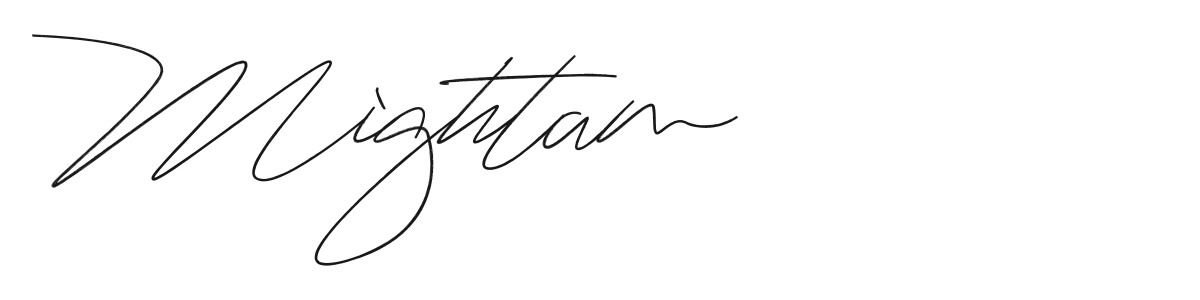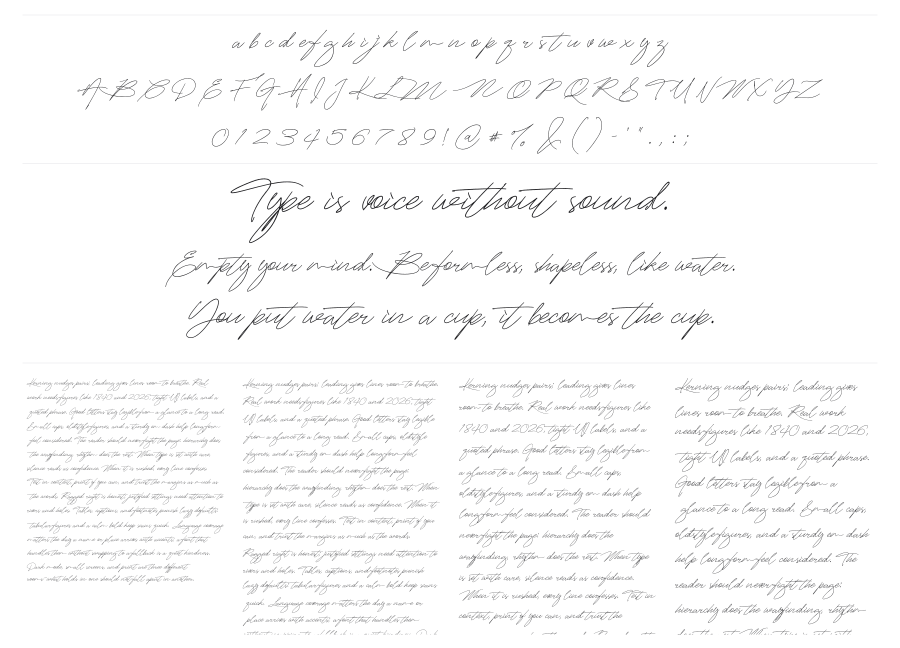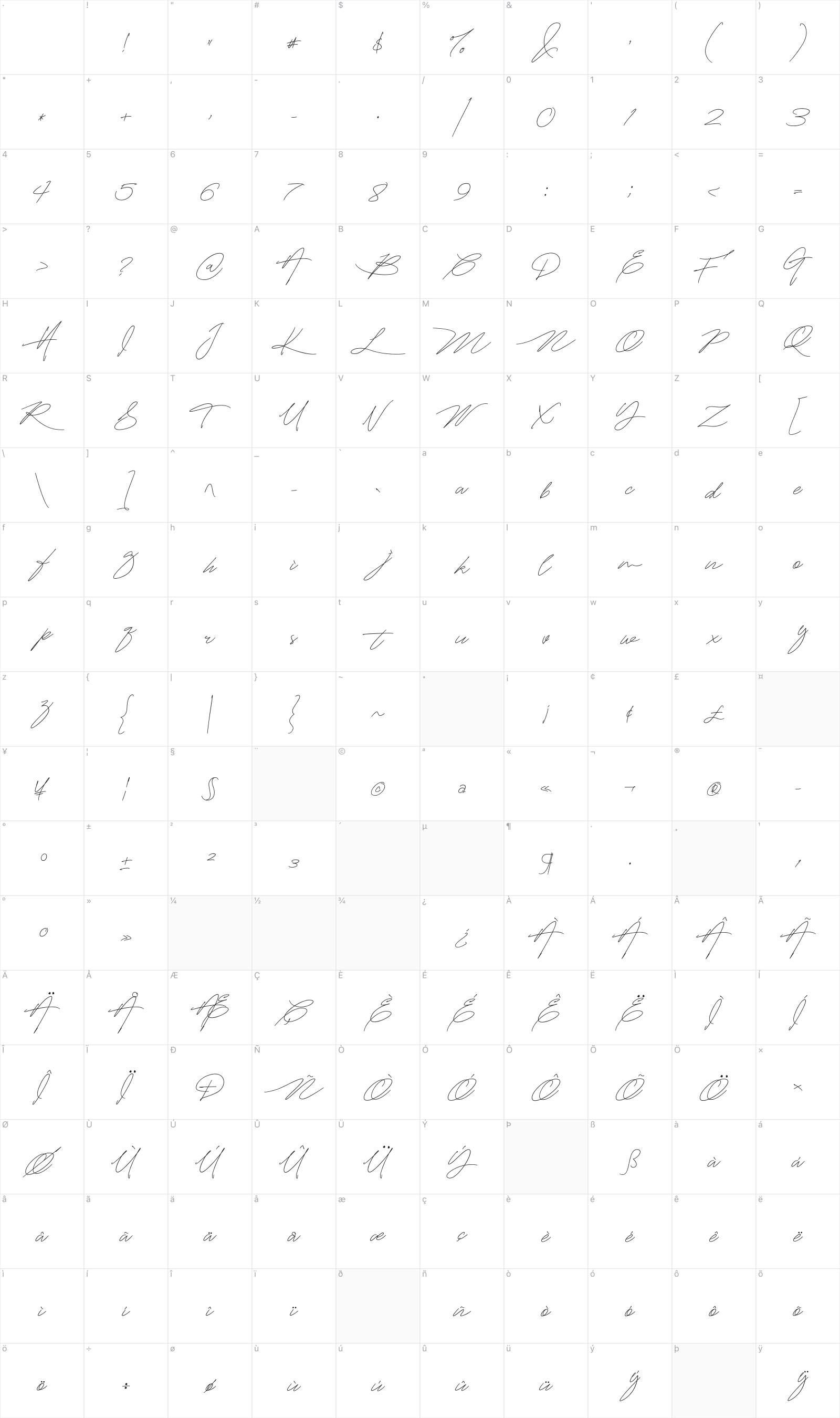
Mightam
by Khaiuns
Mightam is an ultra-thin formal script that moves across the page like a refined ink signature. Its hairline strokes and long sweeping connectors give it an airy, couture quality that suits wedding stationery, luxury branding, and editorial headlines. The loose, organic rhythm keeps it feeling handcrafted rather than mechanical.